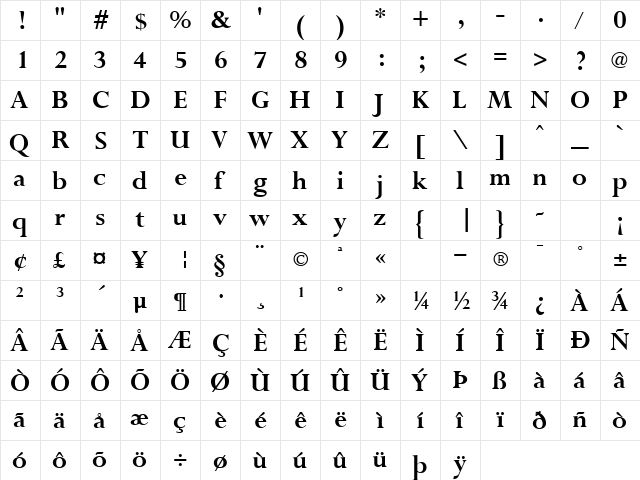
GE Pilfering Bold
Design Context for GE Pilfering Typeface
GE Pilfering is a composed and adaptable typeface that performs quietly and consistently across a wide range of design contexts. Its bold stroke weight gives it real presence on the page.